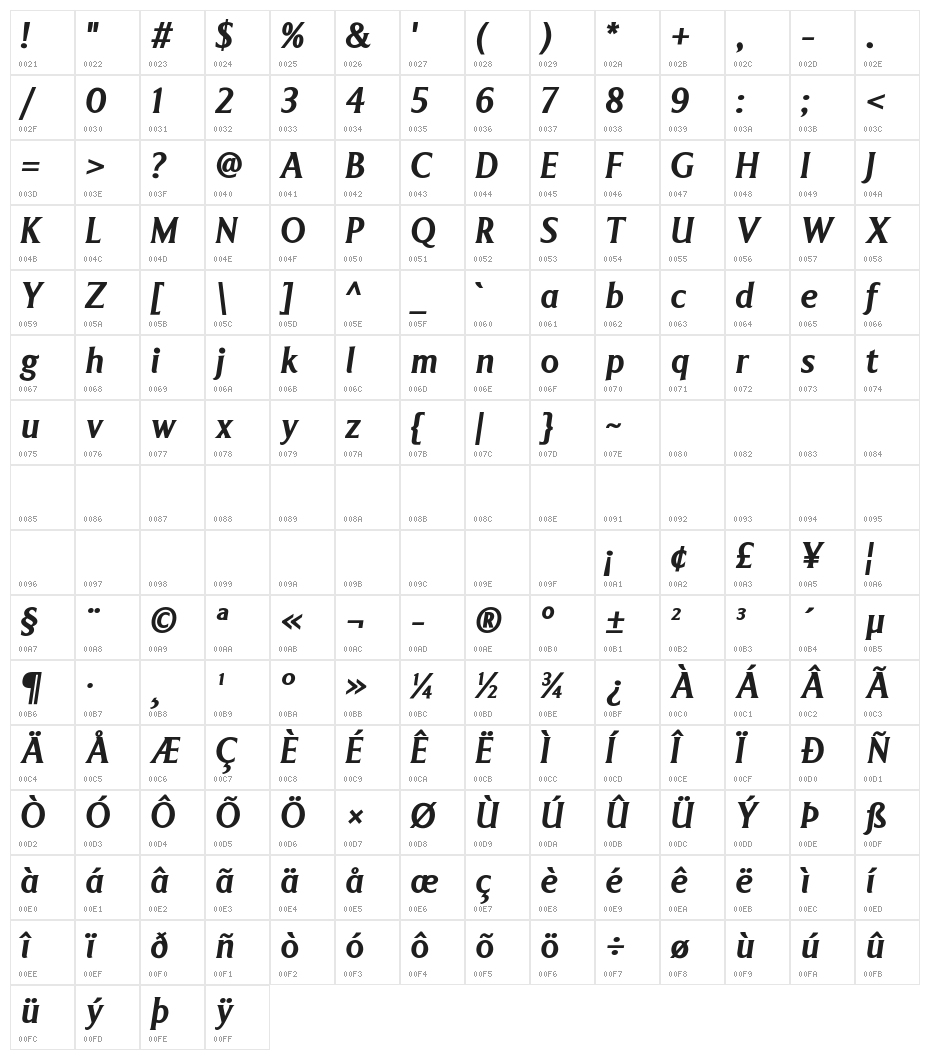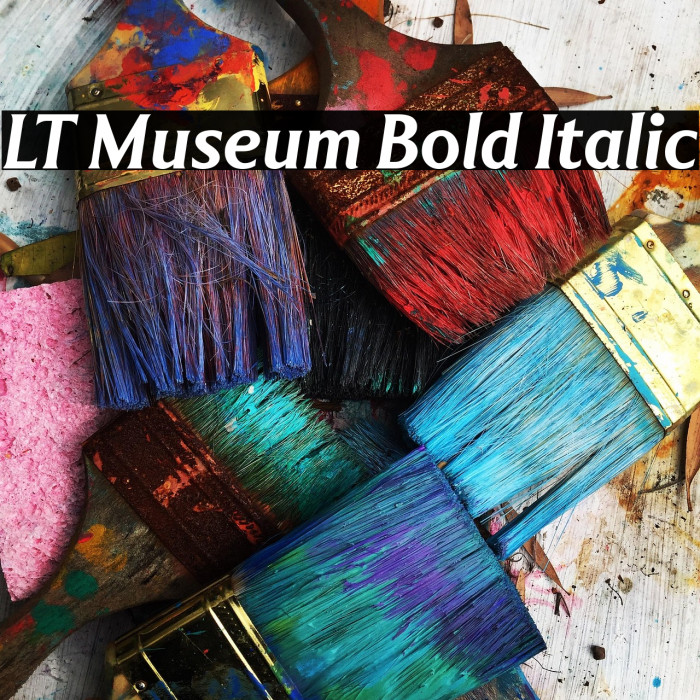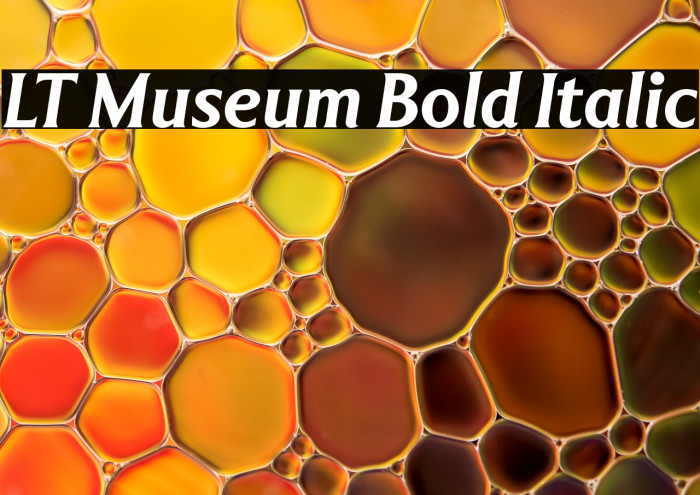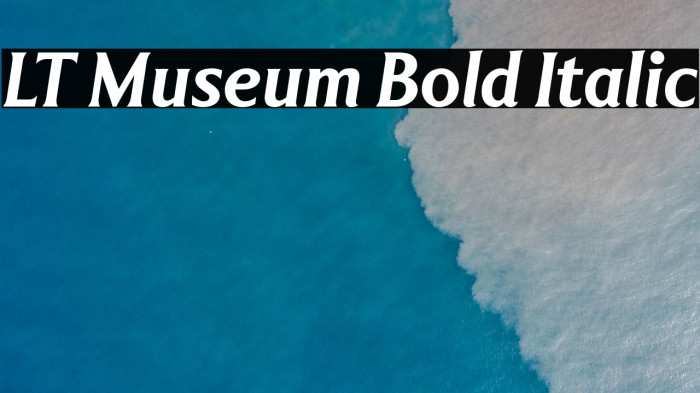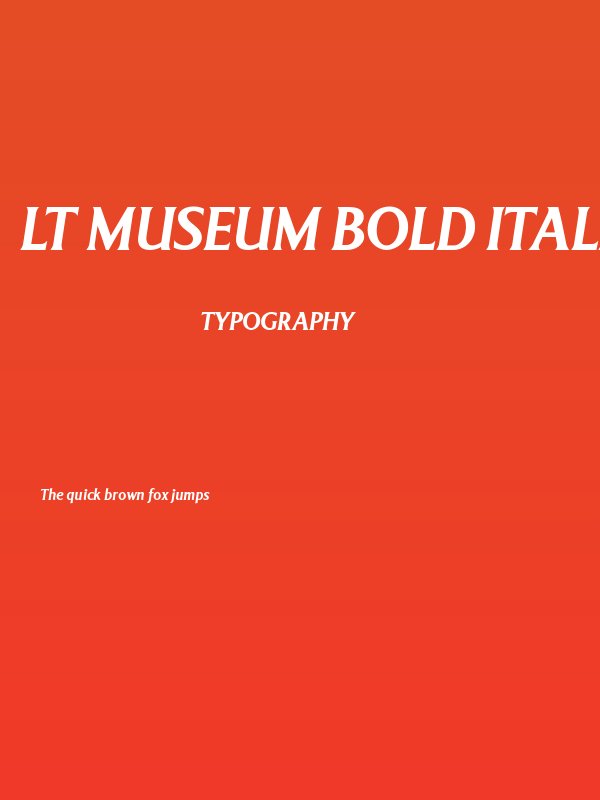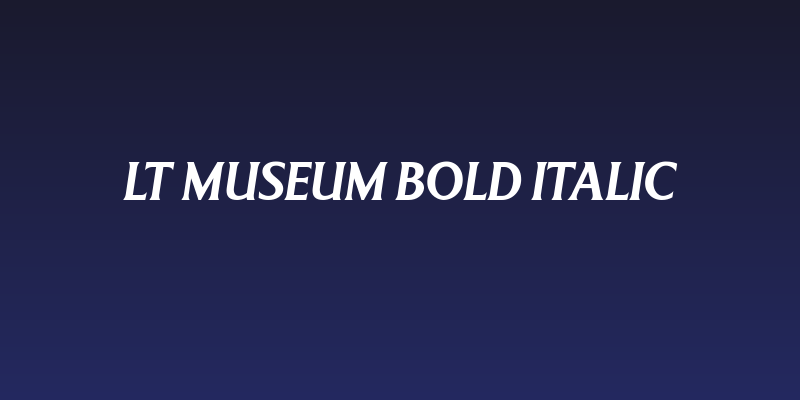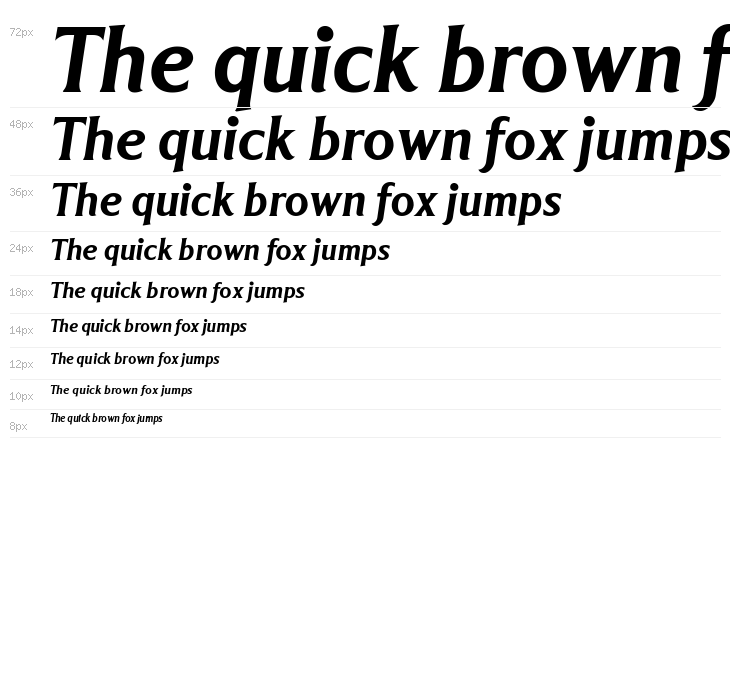
LT Museum Bold Italic Font
LT Museum Bold Italic Description
This font exhibits a bold and italicized style, characterized by its strong, confident strokes and dynamic slant. The uppercase letters are prominent and assertive, while the lowercase letters maintain a consistent flow, enhancing readability. Numbers are equally bold, ensuring clarity in numerical data. Special characters are well-defined, adding versatility for various applications. The overall design is modern yet timeless, making it suitable for a wide range of uses.